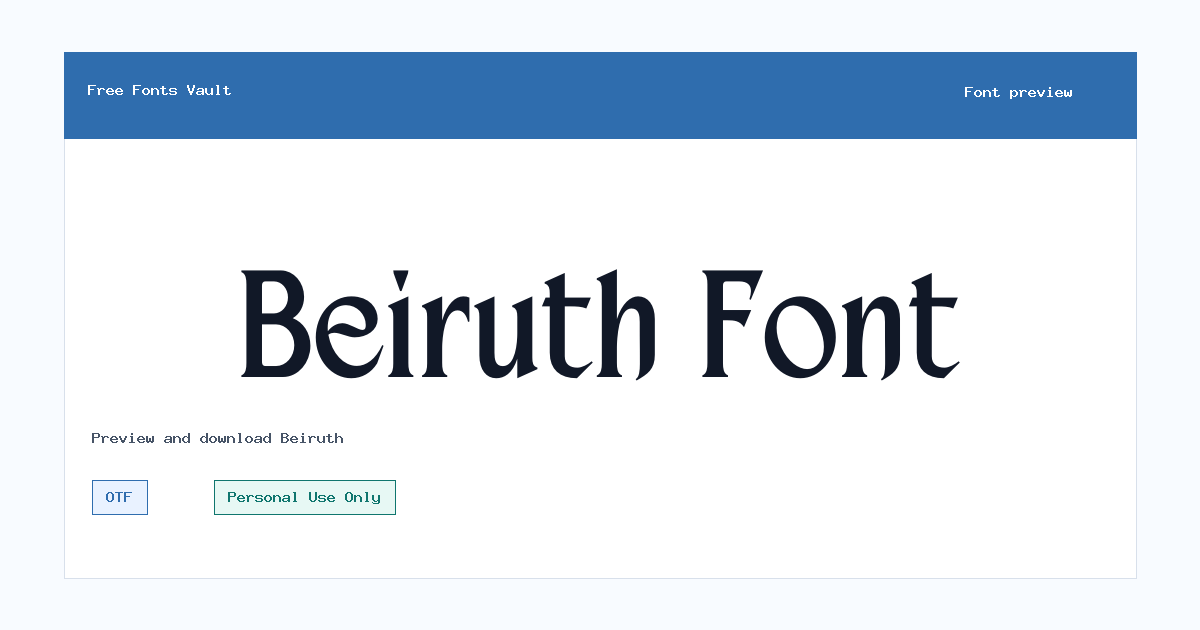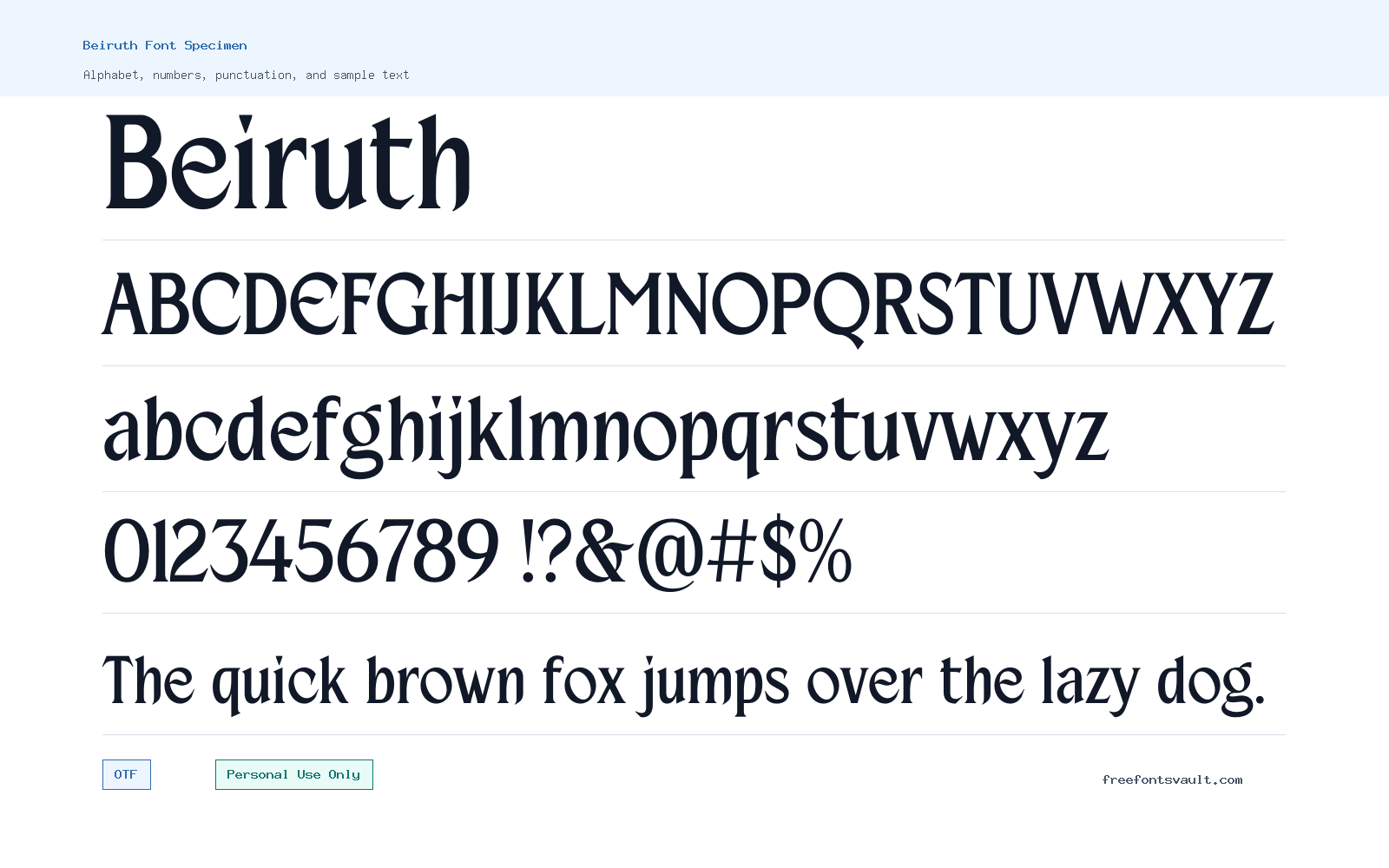
Beiruth
- Designer Muhamad Yusron Billah
Beiruth is a decorative serif font family with Regular and Italic styles. It has a bold, high-contrast look, sharp serif details, and enough personality for short display text where a plain serif would feel too quiet.
Beiruth works best as a display serif rather than a long-reading text face. In the preview, the letters show strong thick-to-thin contrast, pointed terminals, and carved-looking serif shapes that give words a formal but expressive tone. The Regular style feels upright and compact, while the Italic style adds a clear forward slant for emphasis, quotes, names, or secondary lines. Because the design has decorative cuts and tight character shapes, it is most effective when the text is short and given enough space.
Use Beiruth for titles, invitations, boutique-style headings, book or magazine cover concepts, logo mockups, packaging tests, social graphics, and editorial display layouts. It supports uppercase, lowercase, numerals, and common punctuation in OTF format, so you can test headlines, dates, names, and short phrases directly in the preview. For small captions or body copy, pair it with a simpler sans serif or a calmer text serif, and check spacing carefully before export. If your design needs to stay readable at small sizes, use Beiruth mainly for the main wordmark or headline and keep supporting text in a more neutral font.
- Decorative serif style with high contrast and sharp details
- Headlines, invitations, covers, packaging concepts, and social media graphics
- Short brand-style words, names, quotes, and decorative title treatments
Try Beiruth in the preview with the exact words you plan to use. Test uppercase-only titles, mixed-case names, and the Italic style side by side. Increase letter spacing if the decorative shapes feel tight, and avoid using it for long paragraphs where the ornamental details may slow reading.
What kind of font is Beiruth?
Beiruth is a decorative serif font. Its high contrast, sharp details, and stylized letterforms make it better for display use than long body text.
Where should I use Beiruth?
Use it for short, eye-catching text such as headlines, invitations, cover titles, packaging concepts, social graphics, and logo mockups.
Is Beiruth good for paragraphs?
It is not the safest choice for long paragraphs. Use it for titles or short phrases, then pair it with a simpler font for captions, descriptions, and body copy.